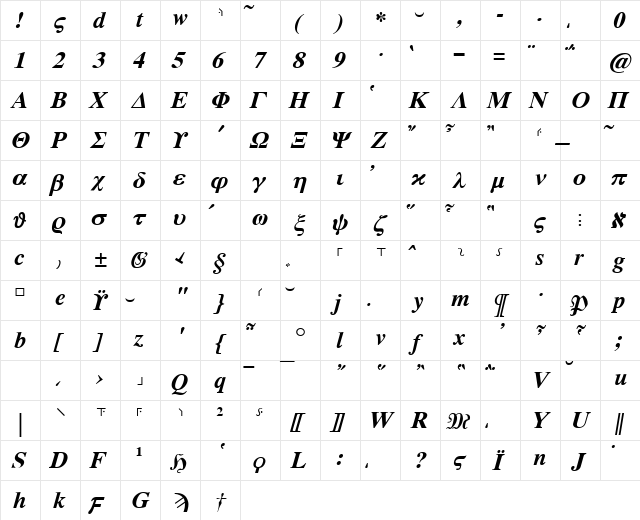
Hellenica BoldItalic Font Preview
Design Context for Hellenica Typeface
Hellenica offers clean, dependable letterforms without strong stylistic allegiance, making it a practical choice for designers who need flexibility. Its italic angle brings a sense of urgency and motion to the letterforms. The heavy weight commands attention and anchors typographic hierarchies.
Pro Tip: Try Hellenica for annotation and caption copy alongside an upright companion — the contrast in angle creates a dynamic but ordered typographic system.